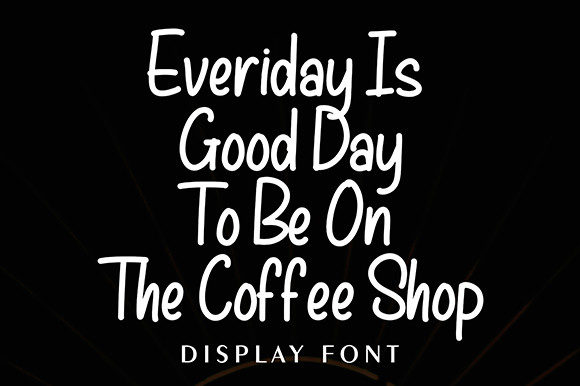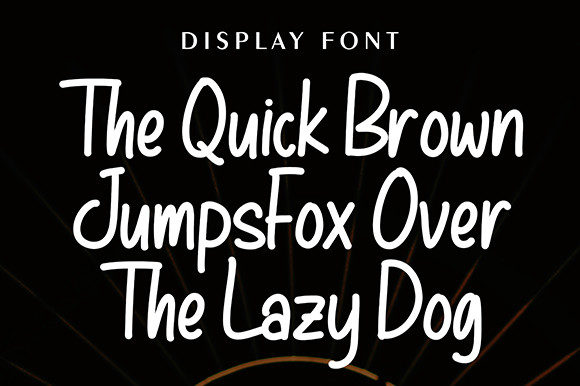
Hangtuah Font
db-ku.com - Script & Handwritten -- Hangtuah is a casual and clean handwritten font. Whether you use it for cartoon related designs, children games or just any creation that requires a lovely touch, this font will be an amazing choice.